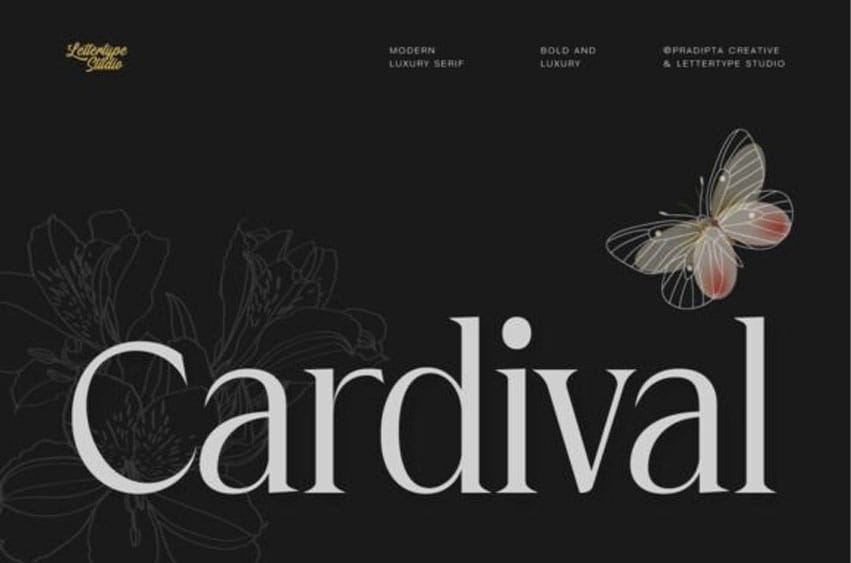
Cardival Font is a striking serif font that combines boldness with modern luxury. Designed with clean lines, sharp contrasts, and elegant curves, it’s perfect for branding projects that demand sophistication and class.
Ideal for high-end brands, fashion lines, editorial headlines, and any design that needs a touch of elegance. This typeface speaks to those who appreciate modern, luxurious aesthetics and want to stand out with a strong, bold statement.